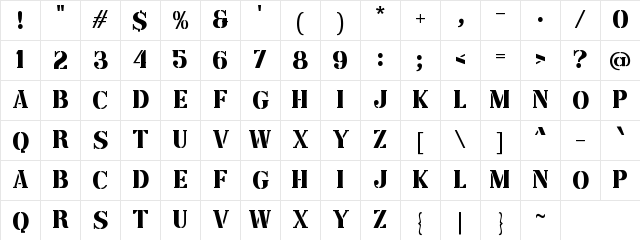
a Angkatan Bersenjata Regular Free Font
a Angkatan Bersenjata Regular
Designer: Wahyu Eka Prasetya
Design Context for a Angkatan Bersenjata
a Angkatan Bersenjata is a composed and adaptable typeface that performs quietly and consistently across a wide range of design contexts.